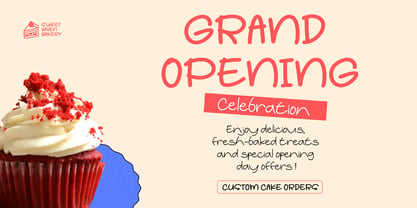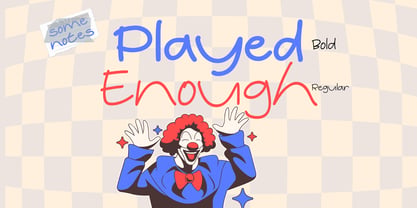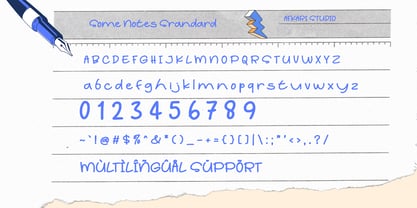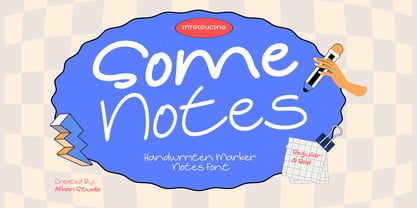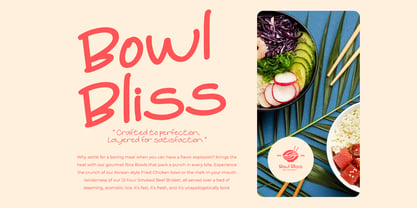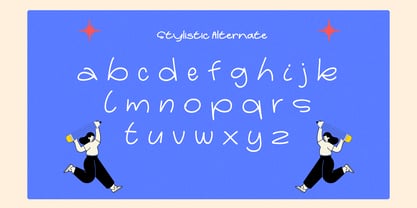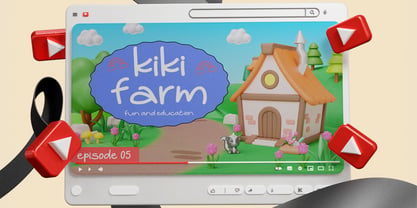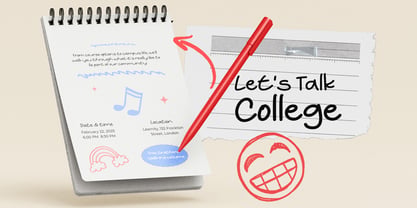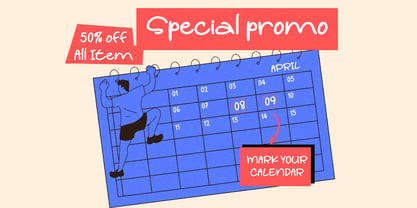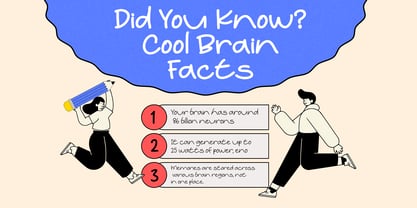
Some Notes
The Some Notes Font Family was designed by Musthafa Kamal Emje and published by Afkari Studio. Some Notes contains 2 styles and family package options. More about this family
Some Notes is a casual handwritten marker note font that captures the spontaneous feel of quick writing and everyday creativity. Designed to mimic real marker strokes, this font brings an authentic, raw, and expressive personality into your designs. With its natural flow, slightly imperfect lines, and relaxed structure, Some Notes delivers a genuine handwritten look that feels both personal and approachable. It’s perfect for designers who want to create content that feels warm, informal, and engaging—just like notes written by hand. Whether you’re working on social media graphics, quote posts, planners, or branding projects, this font adds a human touch that stands out in a digital world. Its balance between readability and character makes it versatile across both print and digital applications. Highlighted Features: - Compete set of uppercase and lowercase letters, numerals, and punctuation - Authentic handwritten marker style with natural stroke texture - Smooth and readable letterforms - Compatible with both PC and Mac, Easy installation process - Works seamlessly with Adobe Illustrator, Adobe Photoshop, Adobe InDesign, and Microsoft Word No additional software required - Multilingual support includes characters like ä, ö, ü, Ä, Ö, Ü, ß, ¿, and ¡ Bring your ideas to life with Some Notes—a handwritten marker font that adds personality, warmth, and authenticity to every design. Start creating more engaging and expressive visuals today.